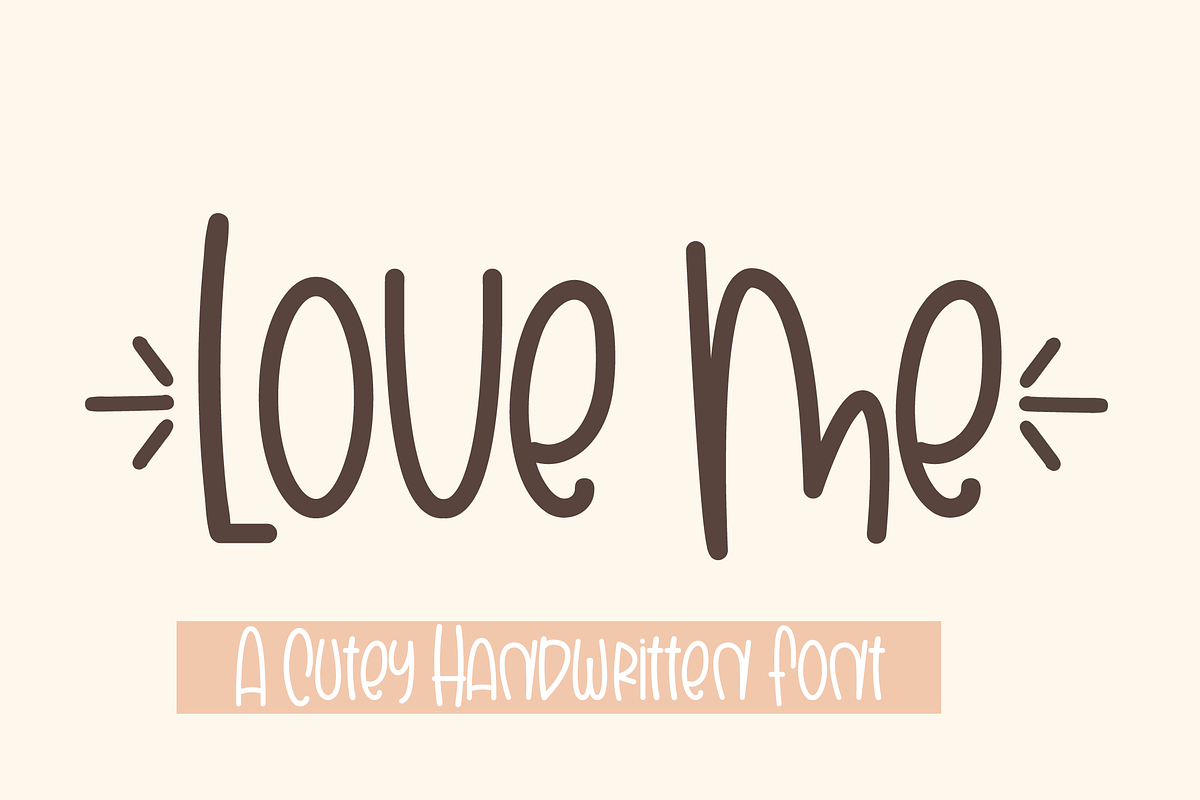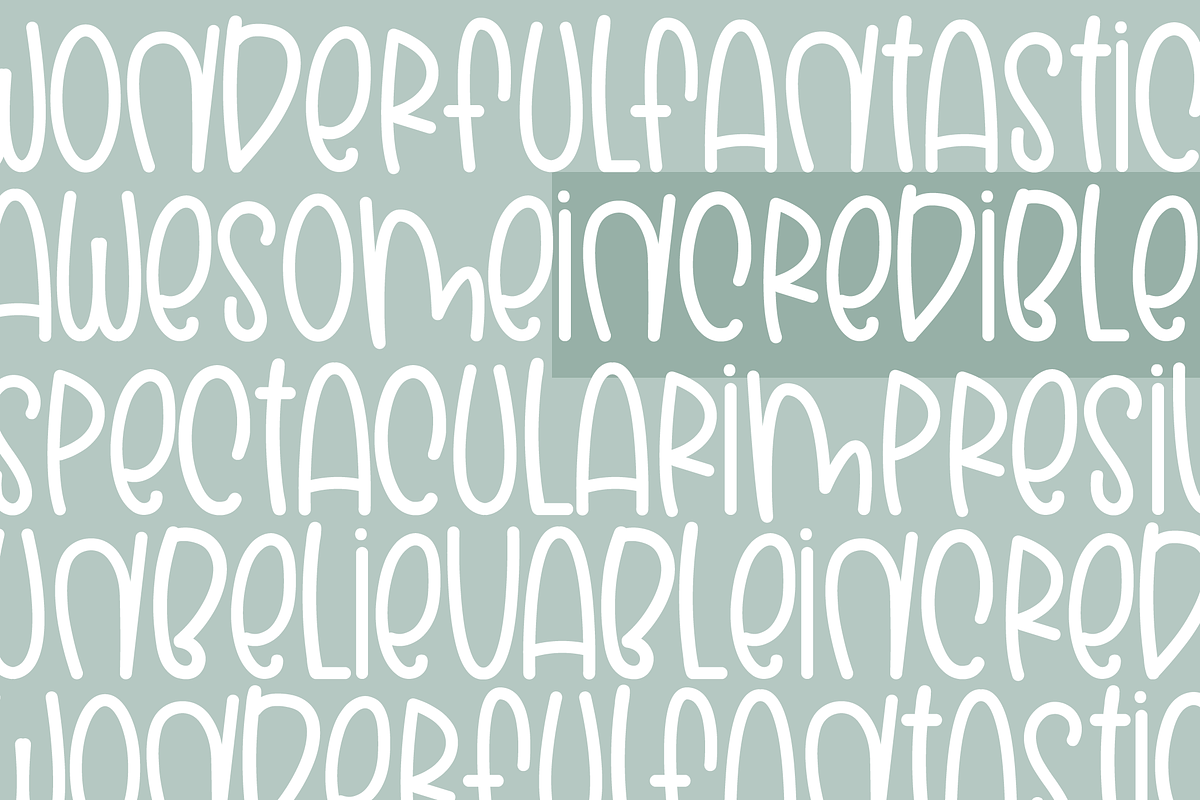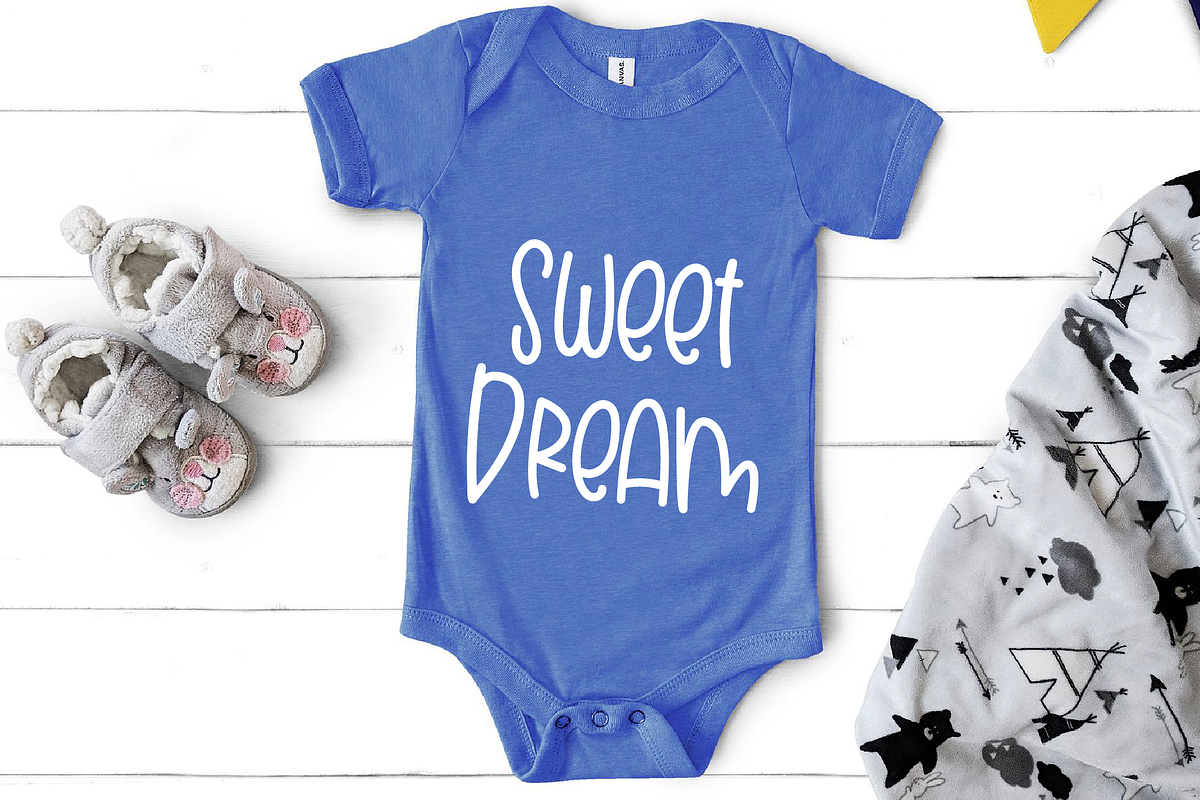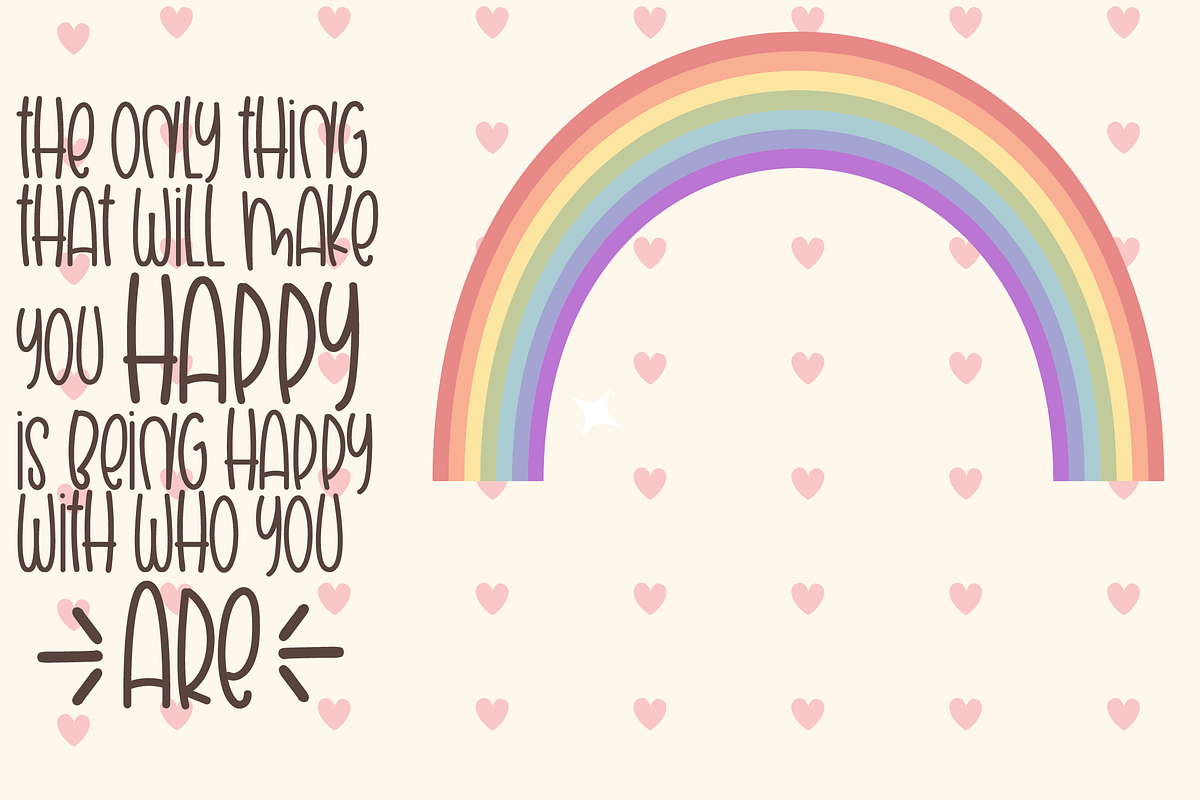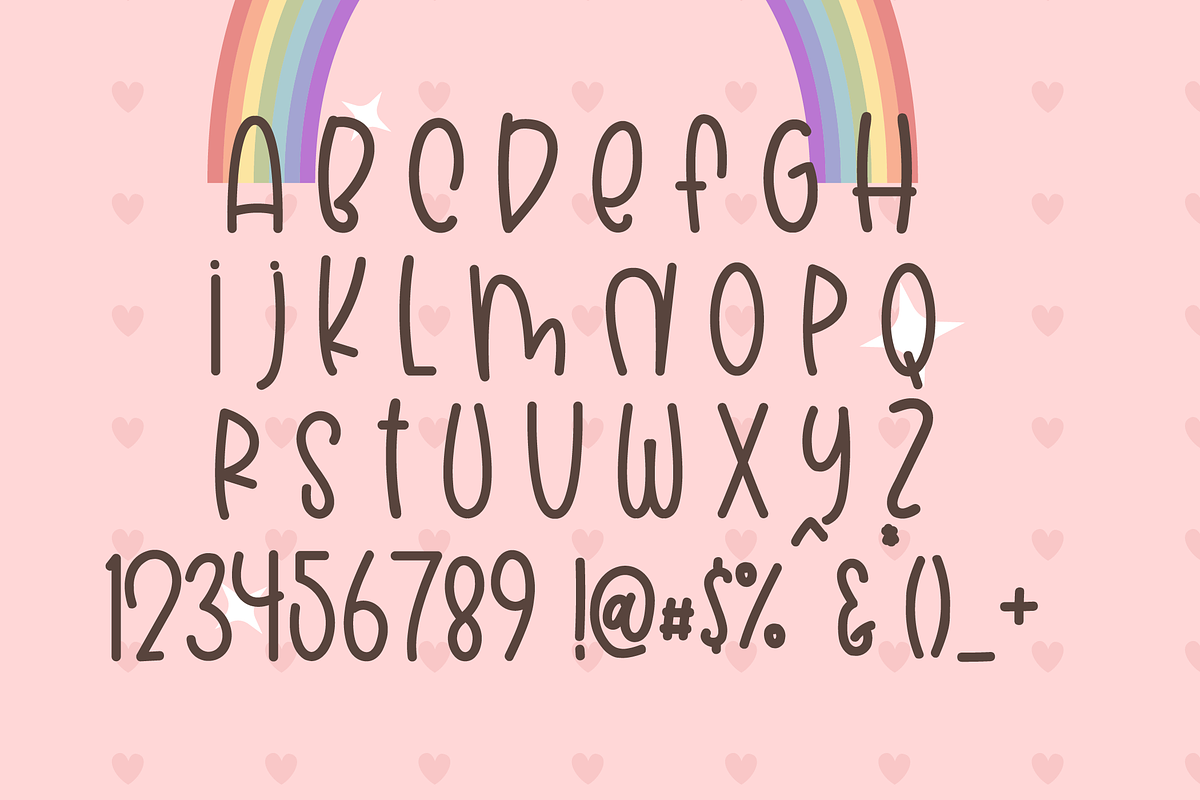
Love Me
Love Me is an enchanting handwritten font. This versatile script font has a wide spectrum of applications ranging from greeting cards to headlines and is guaranteed to add a romantic feel to your next project. Love Me is perfect for product packaging, branding project, megazine, social media, wedding, or just used to express words.